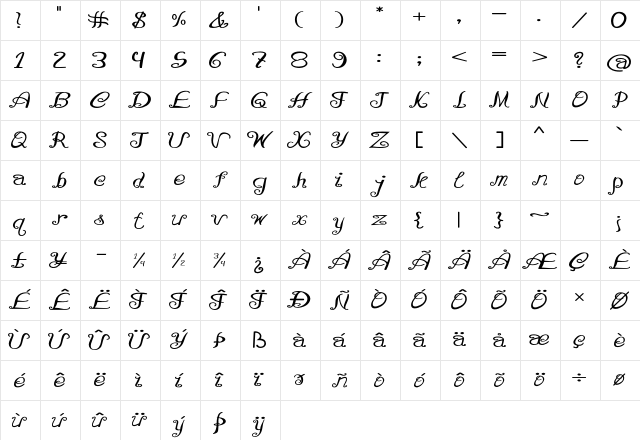
Curlicurl Extra-expanded Bold
Style: Extra-expanded Bold
Curlicurl Family
Curlicurl Extra-expanded Bold
Design Context for Curlicurl
Curlicurl is a composed and adaptable typeface that performs quietly and consistently across a wide range of design contexts. Its bold stroke weight gives it real presence on the page.